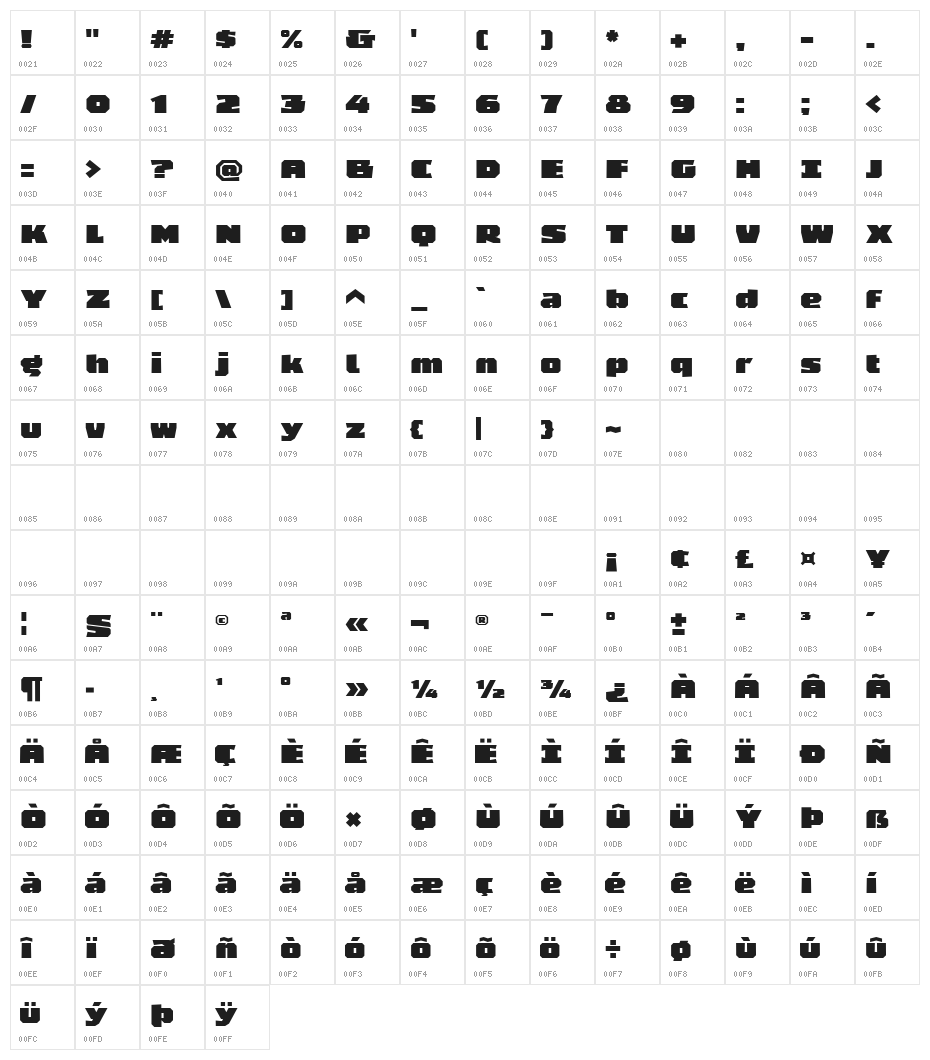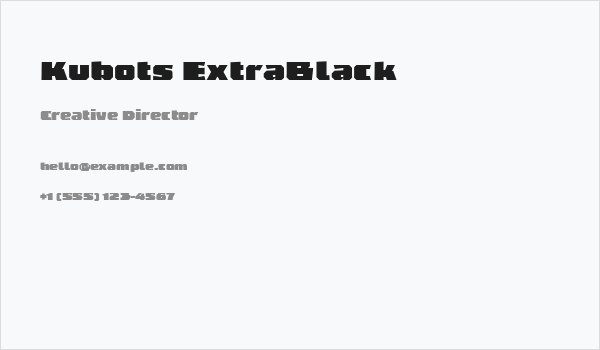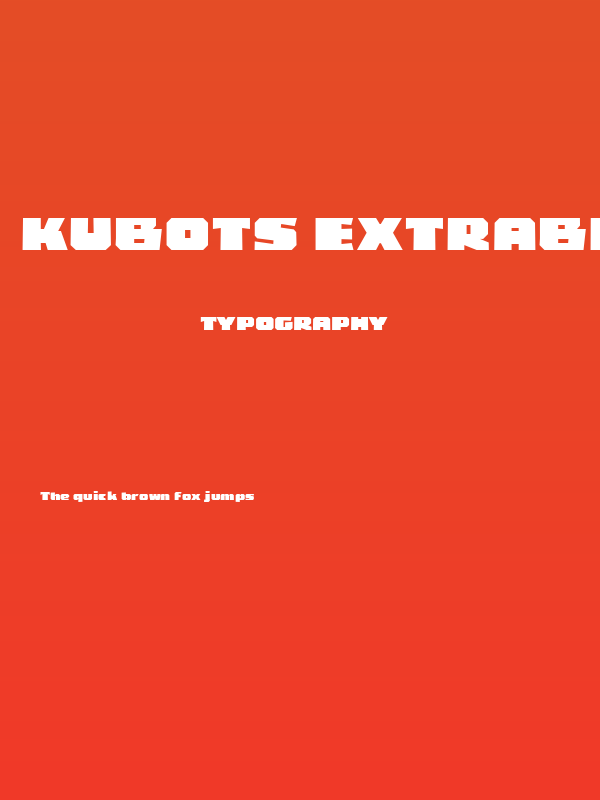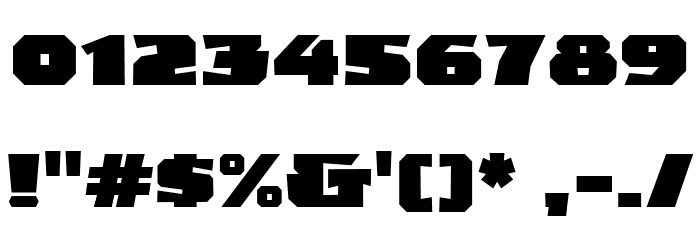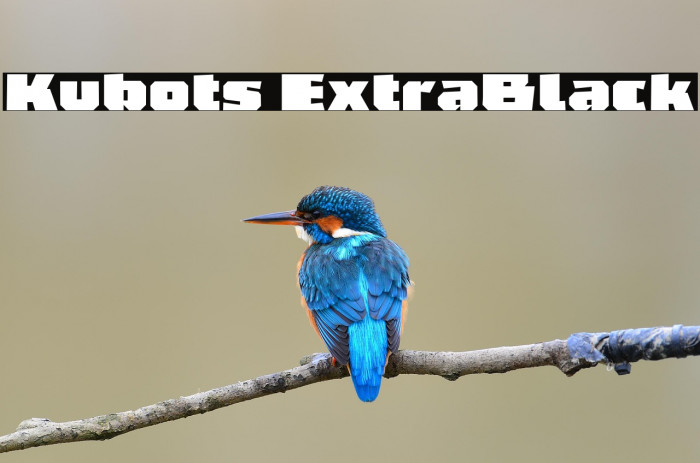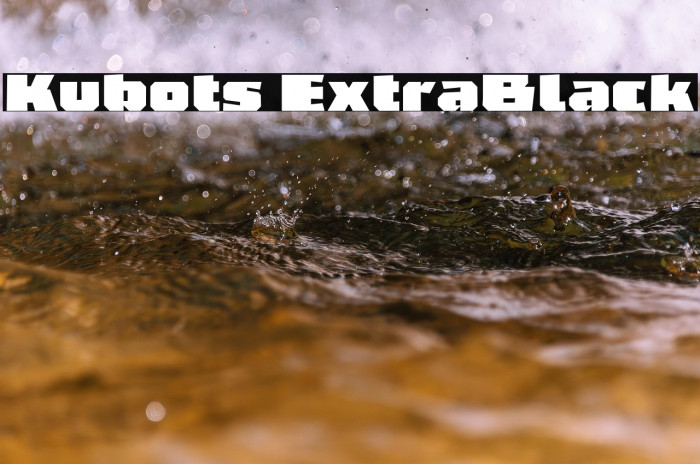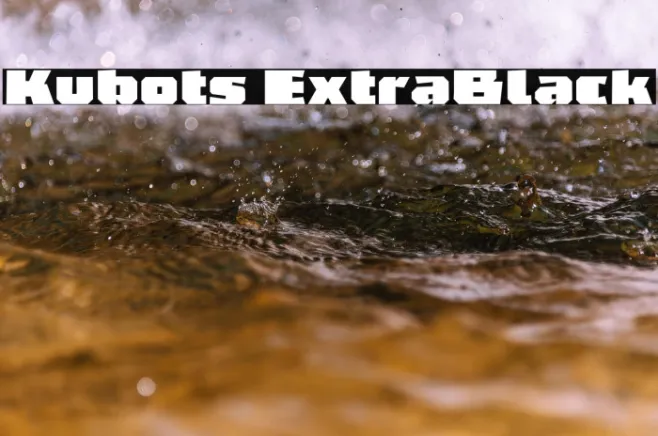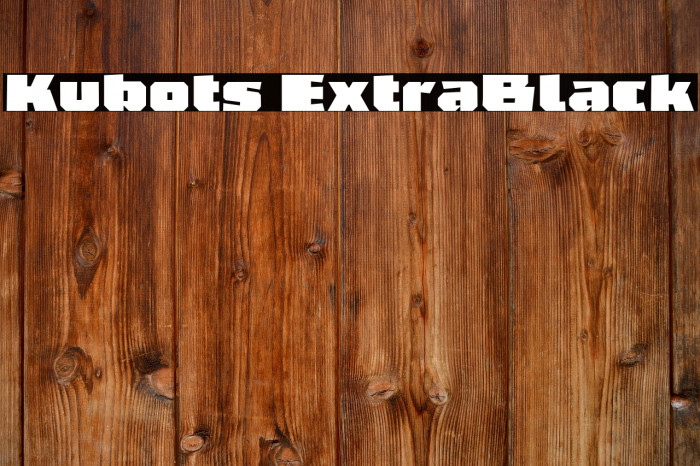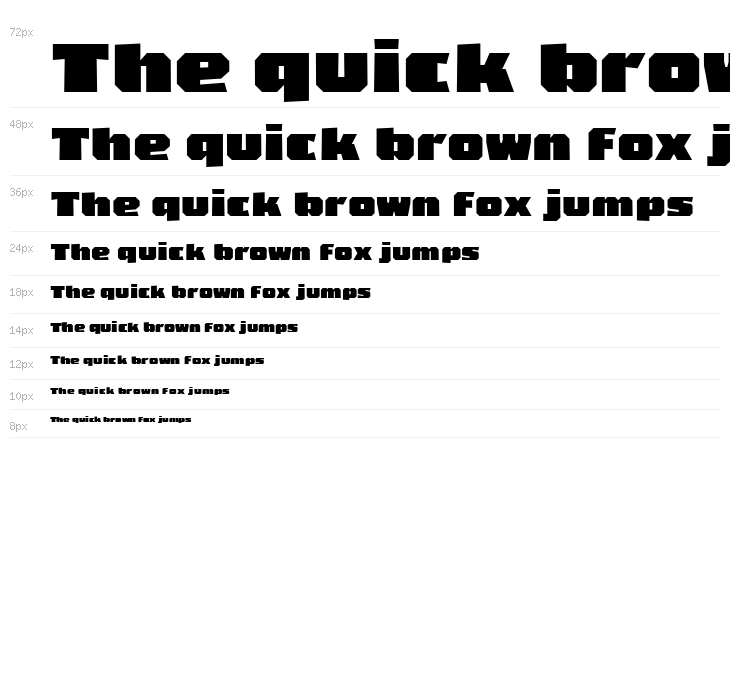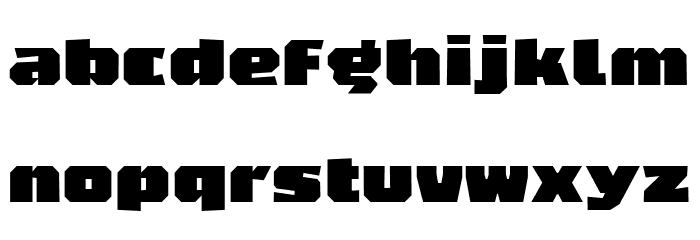
Kubots ExtraBlack Font
Kubots ExtraBlack Description
This font features a bold and impactful design with strong geometric shapes and sharp angles. The characters are thick and blocky, giving them a commanding presence. The uppercase and lowercase letters maintain a consistent width, creating a uniform appearance. The numbers and special characters follow the same robust style, ensuring cohesion across all elements. The font's design is reminiscent of industrial or futuristic themes, making it suitable for projects that require a strong visual impact.